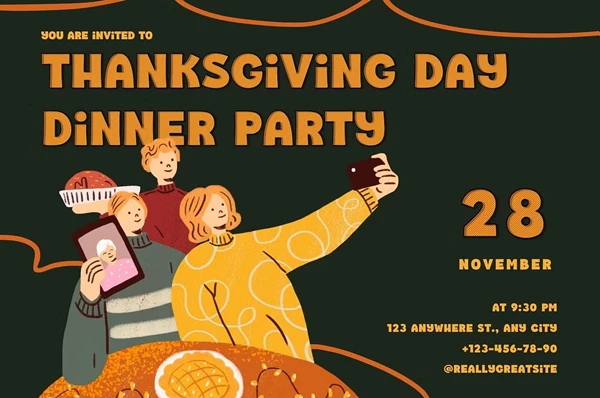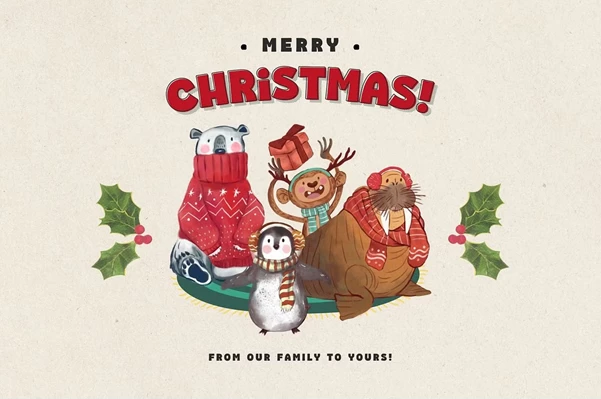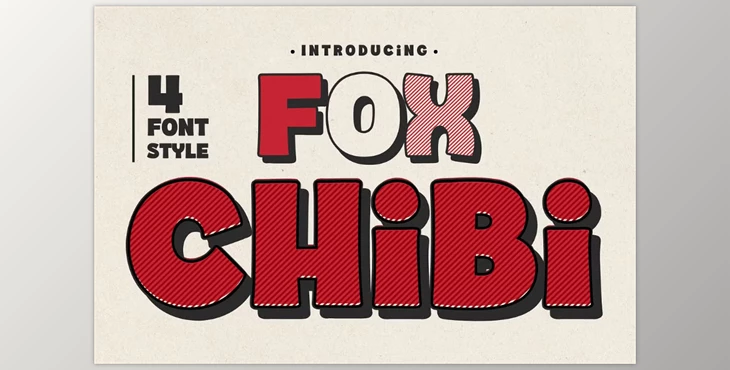
Fox Chibi: 4 Font Styles:
Fox Chibi is a rounded and exaggerated type face that is lively and captures the playful spirit of children’s cartoons. The poster, branding, and content of children can now be designed using this font because of its retro comic style. Using it brings a whimsical spin and makes the content more eye-catching that encapsulates a fun and spirited vibe.
- Regular: a bold type that captures attention and creates impact is the meaning of this font.
- Strokes: adds movement and a unique appeal using lined textures.
- Outline: infinite possibilities of creative typography. Designed to be layered this font outline can be used in many ways.
- Shadow: creates a nostalgic feel and adds depth to the designs bringing a dimension that is vintage.